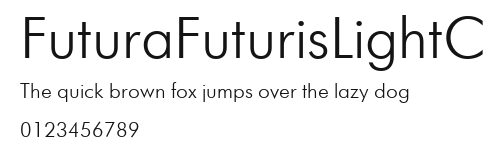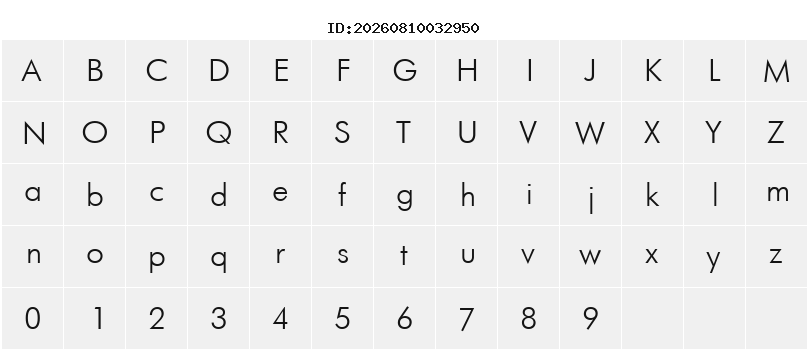
• Font Name: FuturaFuturisLightC
• Full Font Name: PT FuturaFuturis Light Cyrillic
About FuturaFuturisLightC.ttf
FuturaFuturisLightC.ttf is a modern, elegant sans-serif font designed for ultimate readability and visual harmony. Perfect for branding, headlines, web design, and print materials.